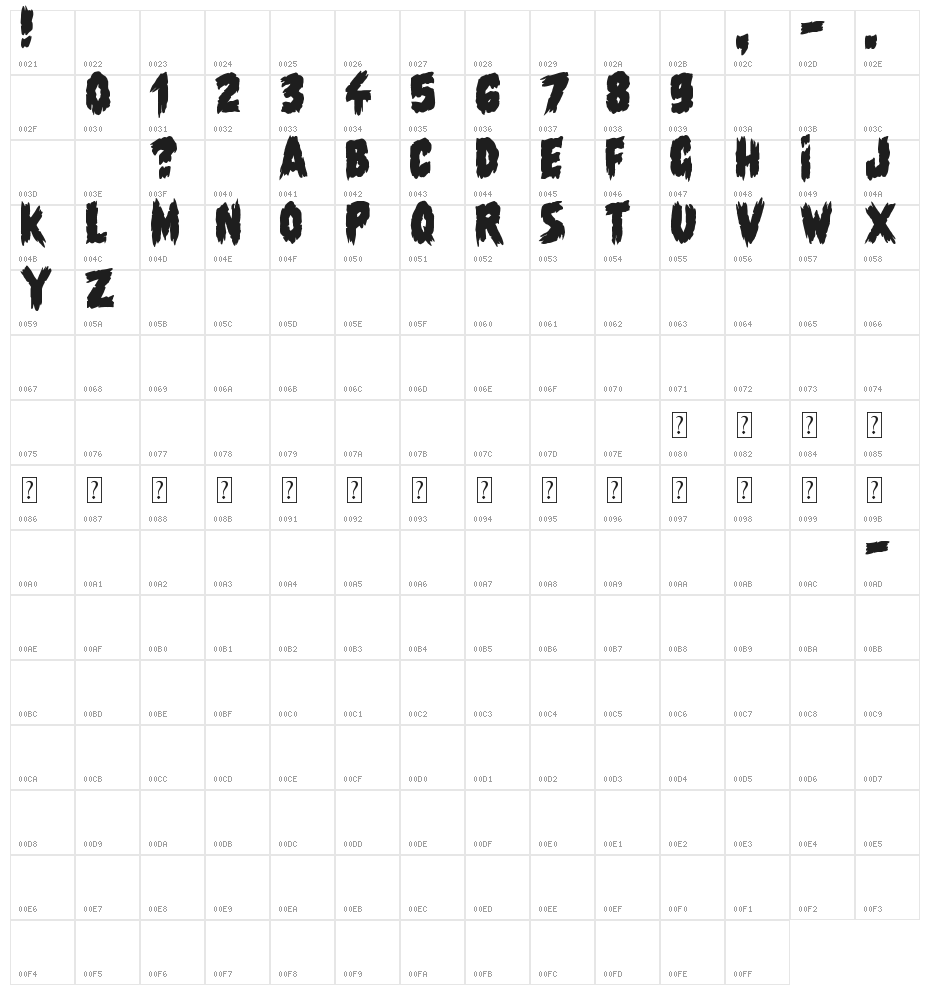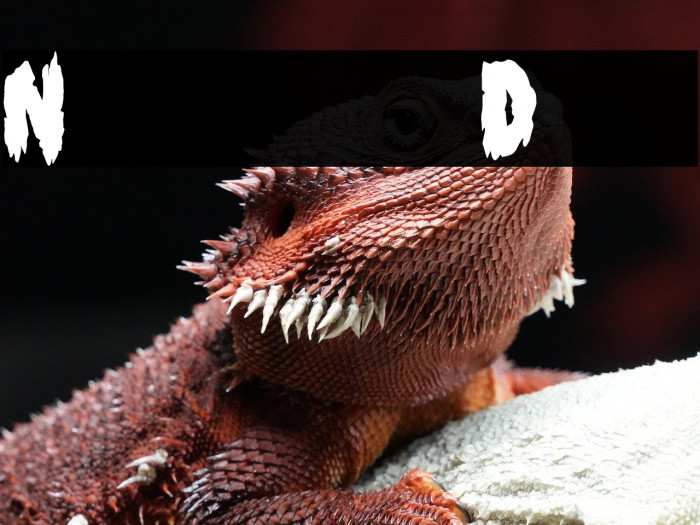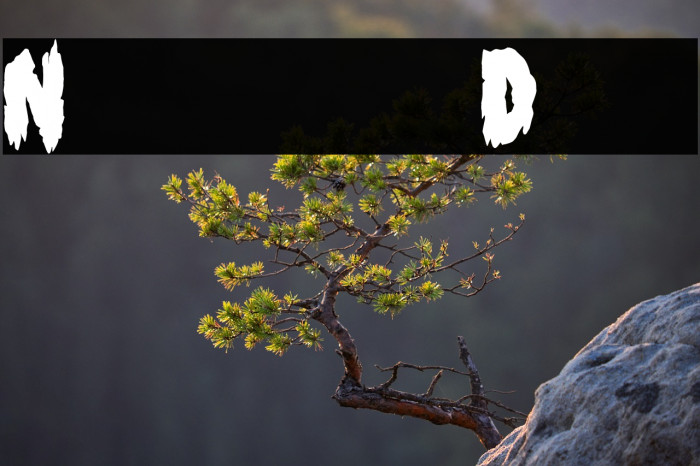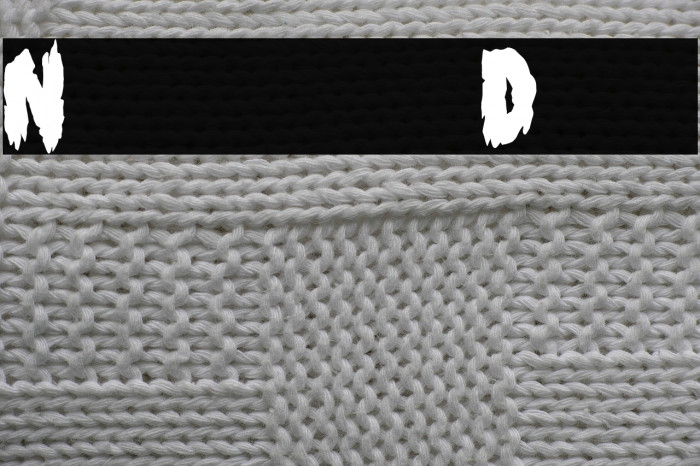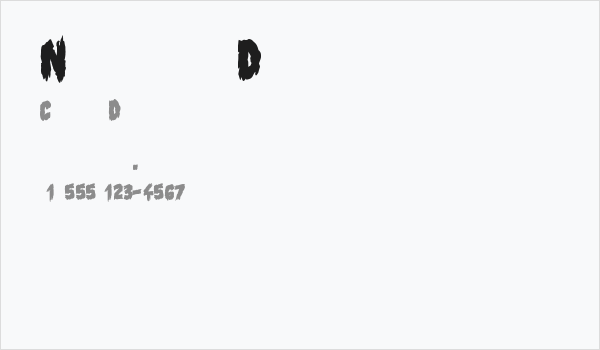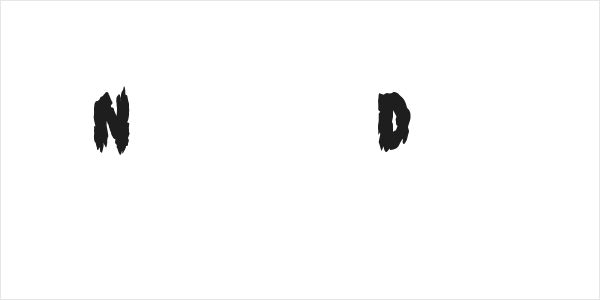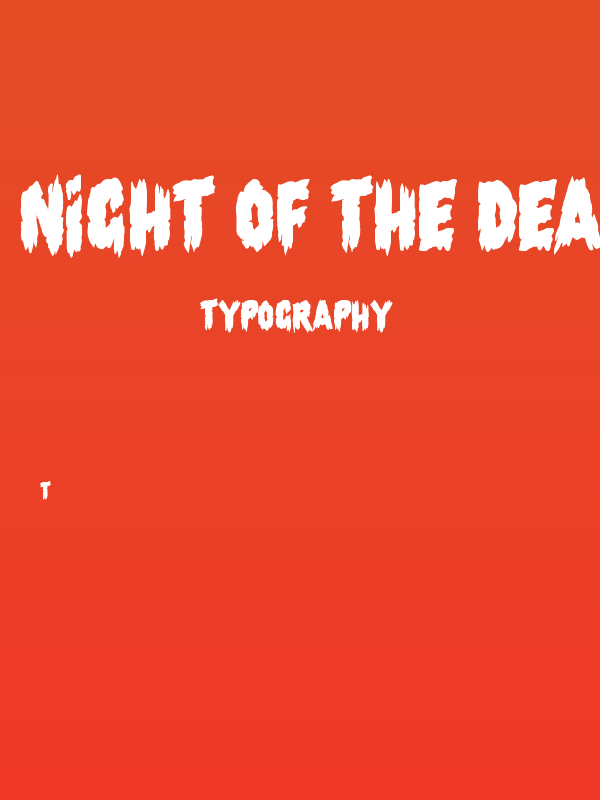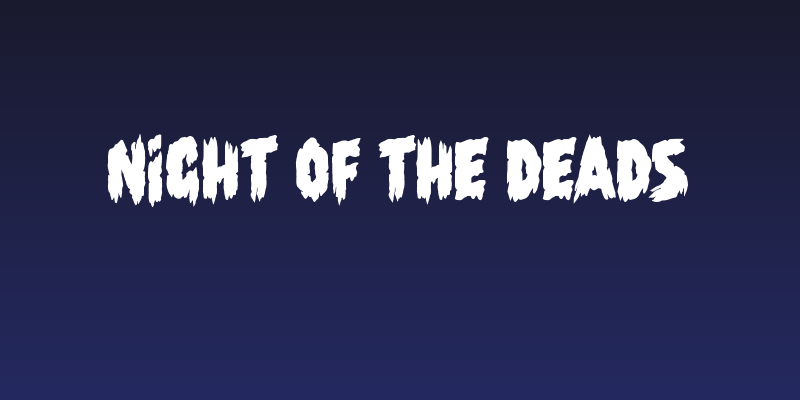
Night of the Deads Font
Night of the Deads Description
This font features a bold, jagged style reminiscent of horror themes, with each character appearing as if it has been torn or scratched. The uppercase letters are particularly striking, with irregular edges that give a sense of movement and chaos. The numbers and special characters maintain this distressed look, adding to the overall eerie aesthetic. This font is perfect for creating a spooky or unsettling atmosphere, ideal for Halloween-themed projects or anything requiring a dramatic, eye-catching display.
| Proposed Projects | Ideal for Halloween invitations, horror movie posters, themed event flyers, and spooky merchandise designs. |